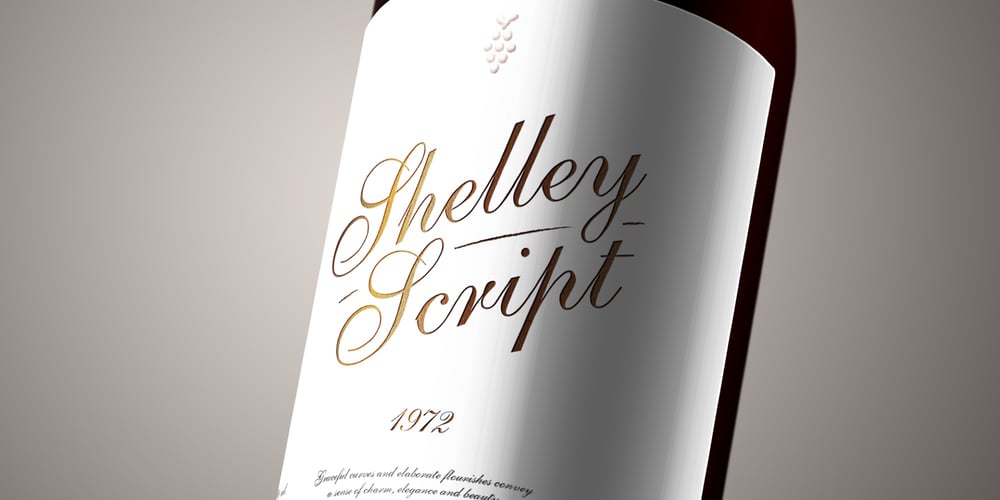
Shelley Script
Shelley Script font
Shelley Script Font Family was designed by Matthew Carter and published by Linotype. Shelley Script contains 1 styles and family package options. Shelley Script was designed by Matthew Carter and appeared with Mergenthaler Linotype in 1972. It is based on intricate English scripts of the 18th and 19th centuries. The musical terms Andante, Allegro and Volante were chosen by Carter to describe the mood of the three different cuts of his font. Andante is the most reserved, Allegro has a few more flourishes, and Volante’s capital letters are surrounded with swirling strokes. Perfect for invitations or other cards, Shelley Script, like other fonts of its kind, seems to appeal particularly to America.